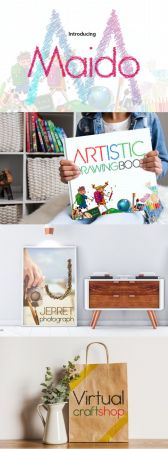
Maido is features and iconic scribbled style. This fun display font is very suitable for artistic creations, grunge designs, handwriting, blackboards text and much more.